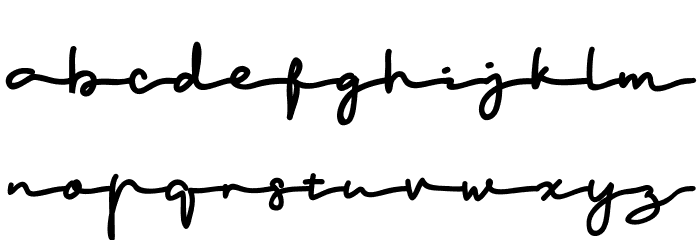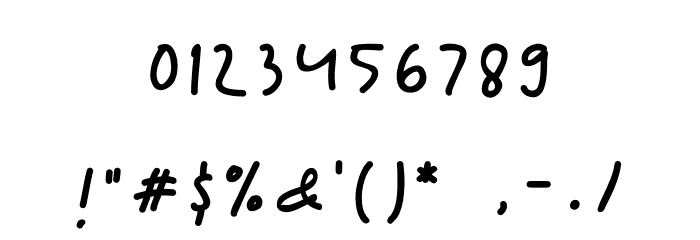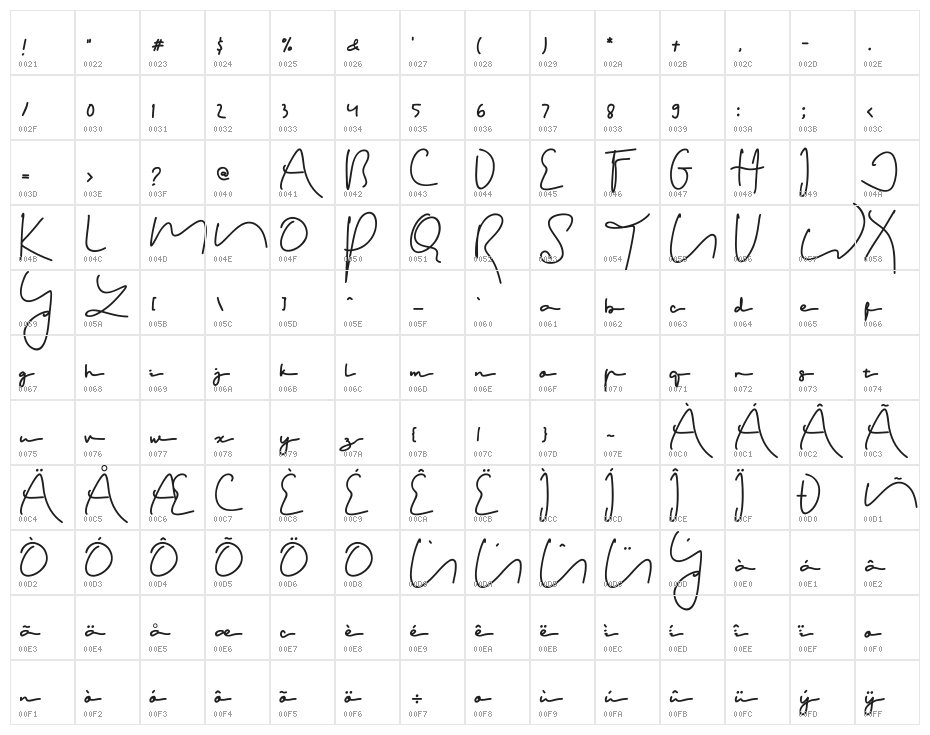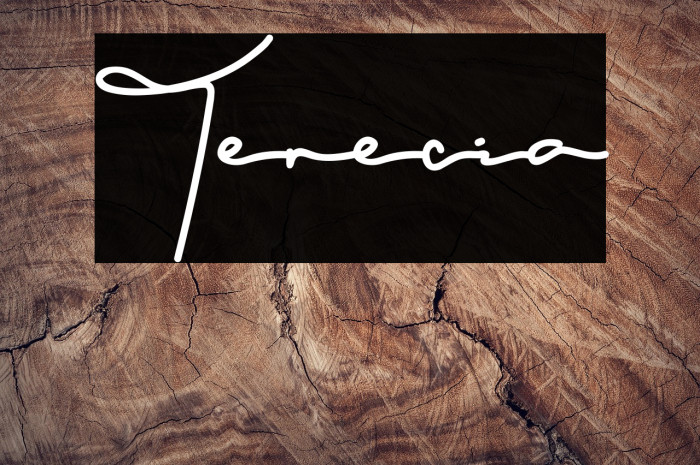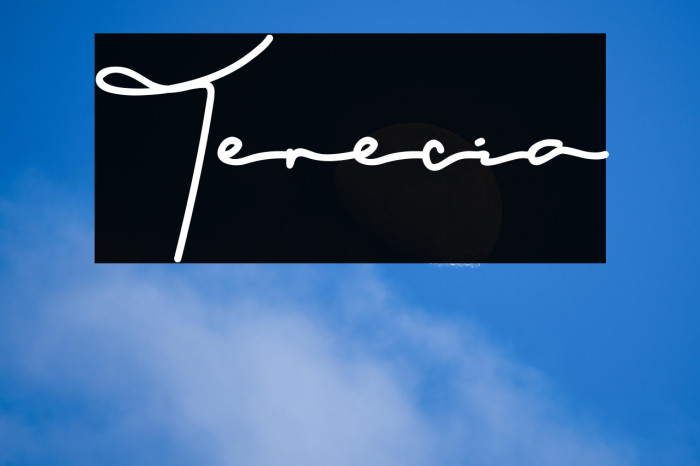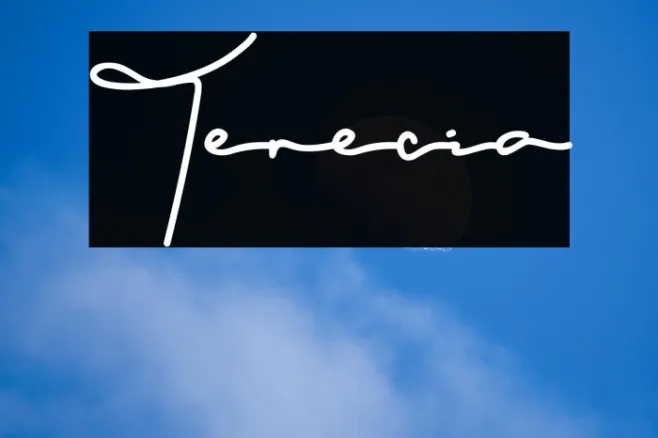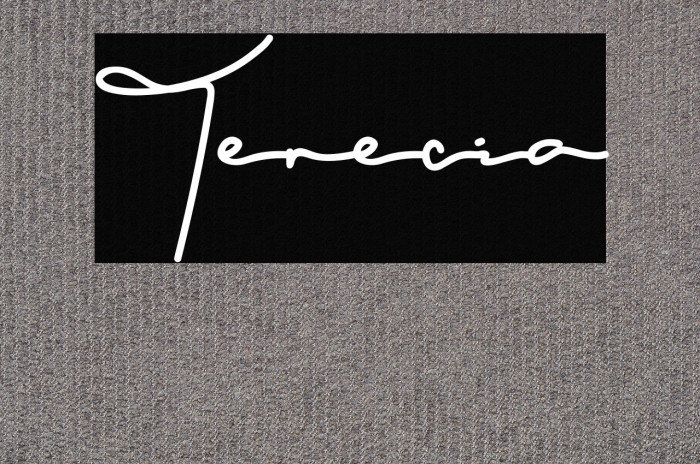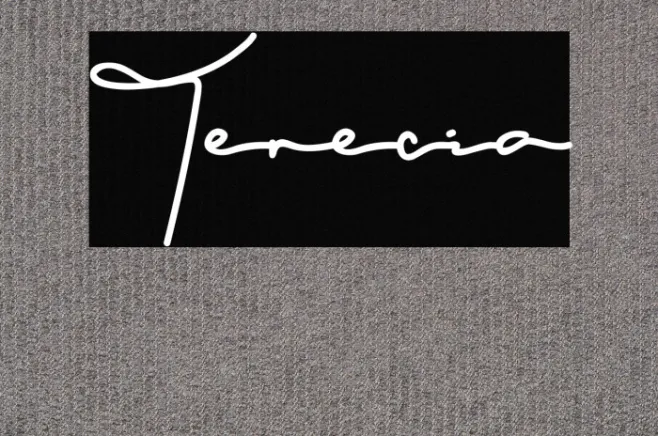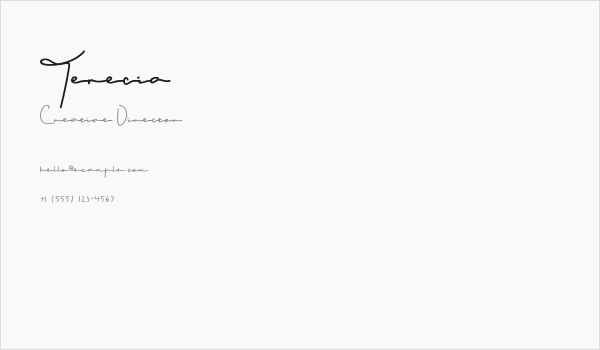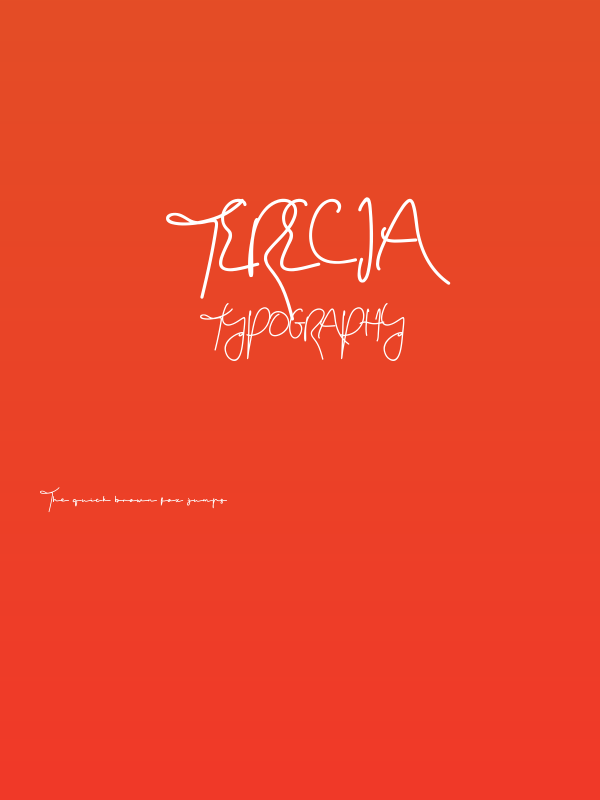
Terecia Font
This font features a playful and casual handwritten style, characterized by its fluid and continuous strokes. The uppercase letters are bold and expressive, with a slight slant that adds a dynamic feel. The lowercase letters maintain a consistent flow, enhancing readability while preserving the handwritten charm. Numbers and special characters are crafted with the same attention to detail, ensuring a cohesive look across all elements. The overall appearance is informal yet stylish, making it suitable for creative projects that require a personal touch.
A playful, casual handwritten font with fluid strokes and a dynamic feel.
- Proposed Projects: Ideal for greeting cards, personal branding, social media graphics, and creative invitations.
- Category: Handwritten
- Overall Style: Casual, Playful
- Use Case: Logos, Headlines, Creative projects